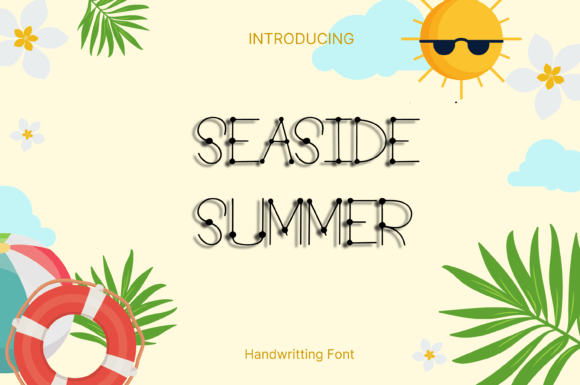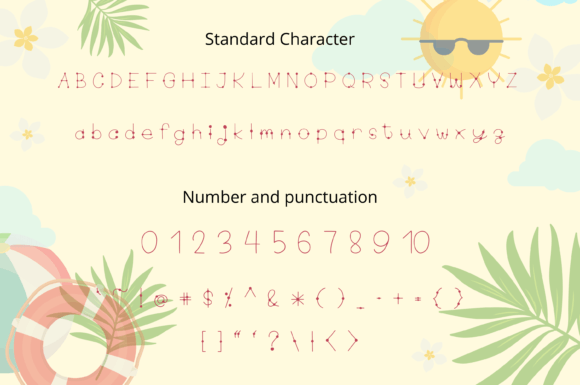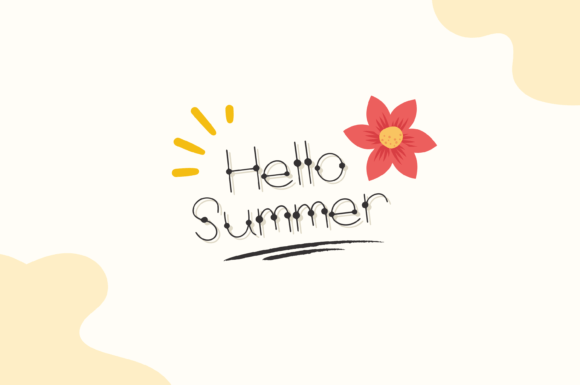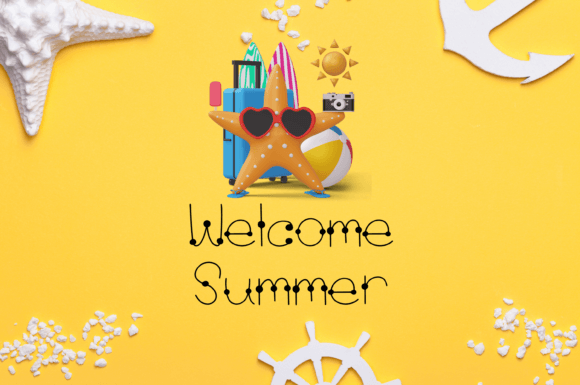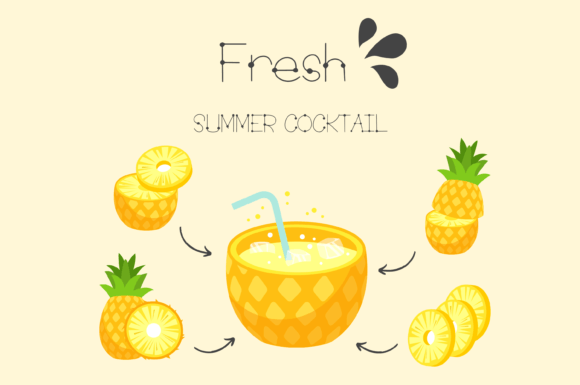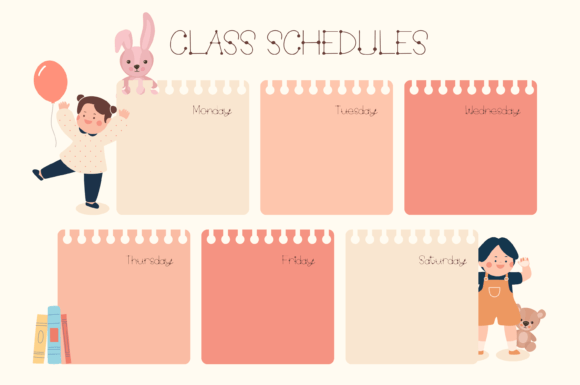
Seaside Summer Font
About Seaside Summer Font
“Seaside Summer is a font that captures the essence of whimsy and fun. Its playful and handwritten style adds a touch of lightheartedness to any project, making it a perfect choice for those seeking a cheerful and vibrant look. With its versatile charm, Seaside Summer effortlessly enhances a wide variety of creative projects, ensuring they stand out with a delightful flair.
What sets Seaside Summer apart is its ability to infuse a sense of joy and energy into designs. The font’s whimsical characters create a lively and playful atmosphere, making it suitable for a myriad of applications. Whether you’re designing greeting cards, invitations, posters, social media graphics, or any other creative piece, Seaside Summer adds a touch of whimsy that instantly captivates the viewer’s attention.
Seaside Summer’s versatility shines through in its adaptability to different themes and styles. Its playful nature makes it ideal for projects related to children, summer, outdoor events, or anything that calls for a carefree and cheerful vibe. The font effortlessly complements various color schemes and design elements, making it a valuable asset for designers looking to create vibrant and visually engaging content.
Incorporating Seaside Summer into your creative ideas is like adding a splash of sunshine and laughter. Its whimsical and fun handwritten style infuses a sense of excitement, transforming ordinary designs into extraordinary works of art. Whether you’re working on personal projects, branding materials, or promotional content, Seaside Summer breathes life into your ideas, making them memorable and captivating.
Seaside Summer is more than just a font; it’s a mood enhancer that brings smiles and positive vibes to your designs. Its whimsical charm and playful spirit make it an essential addition to any designer’s toolkit. Embrace the joy of Seaside Summer and watch as your creative ideas come to life with a sense of fun and excitement, leaving a lasting impression on everyone who experiences them.”